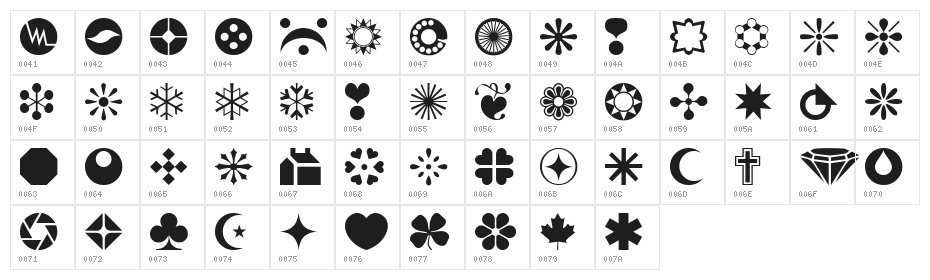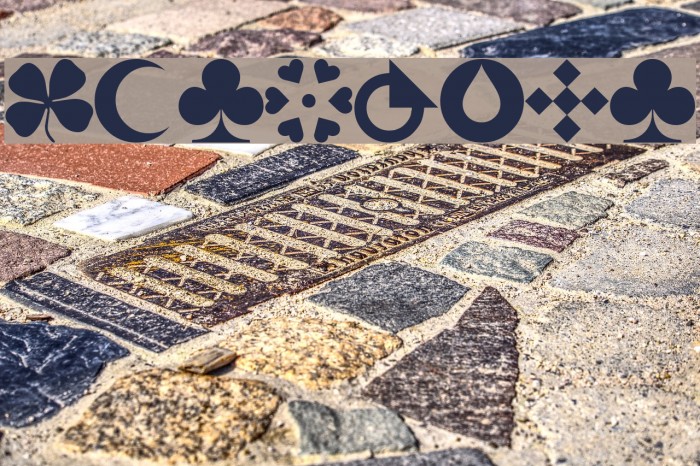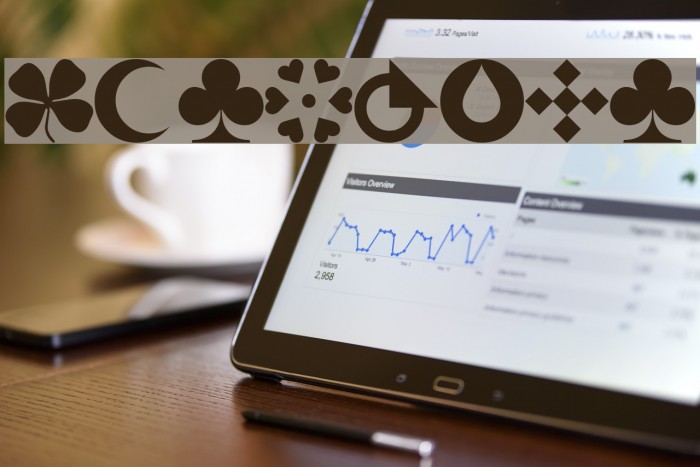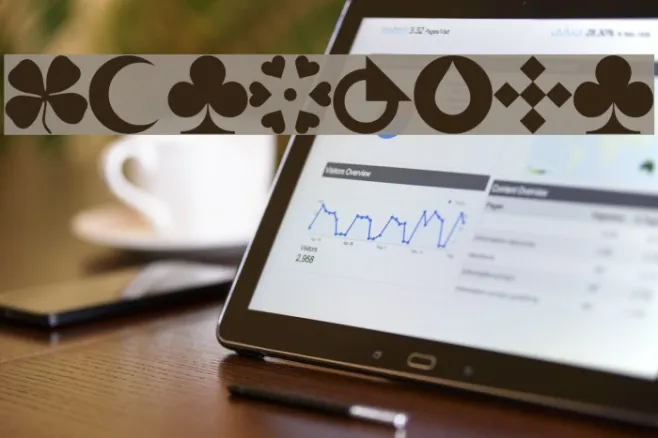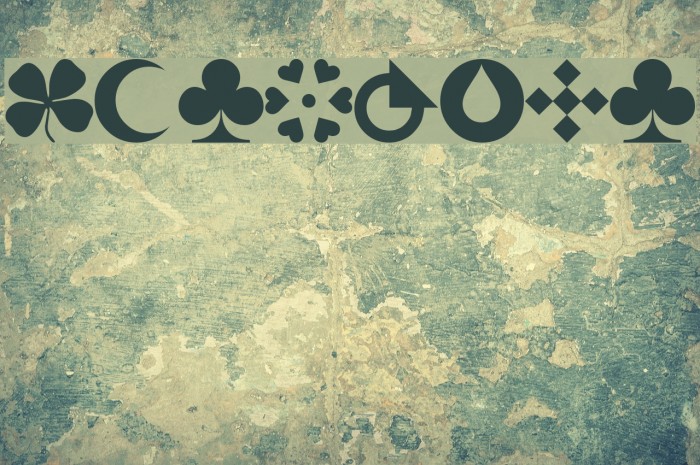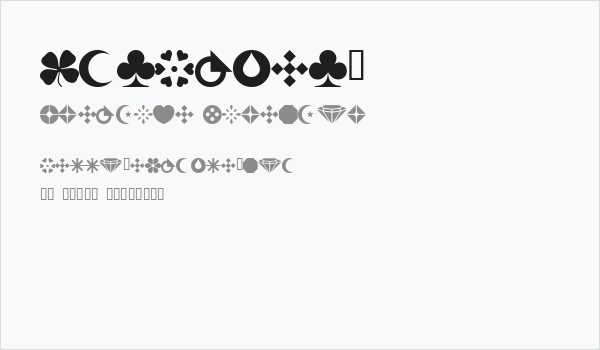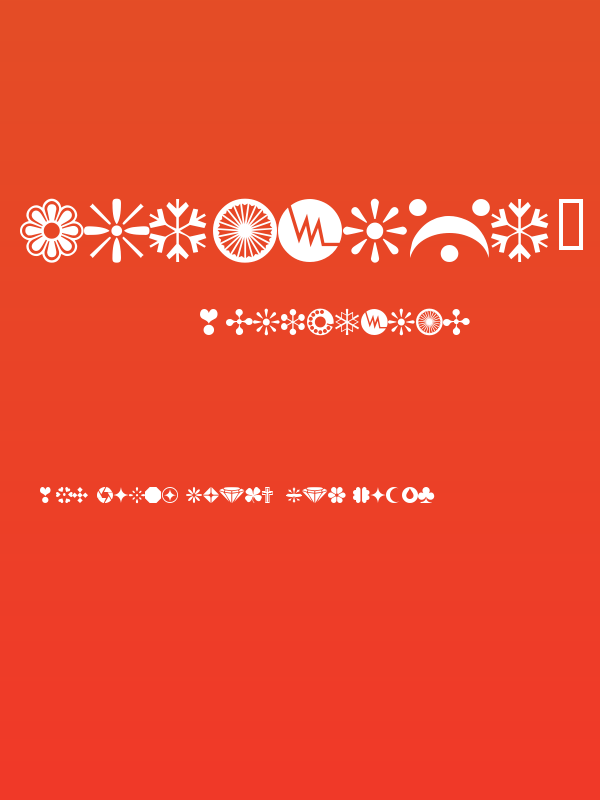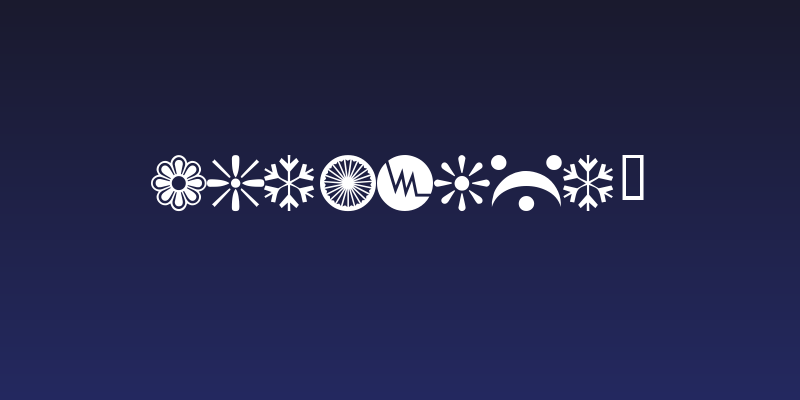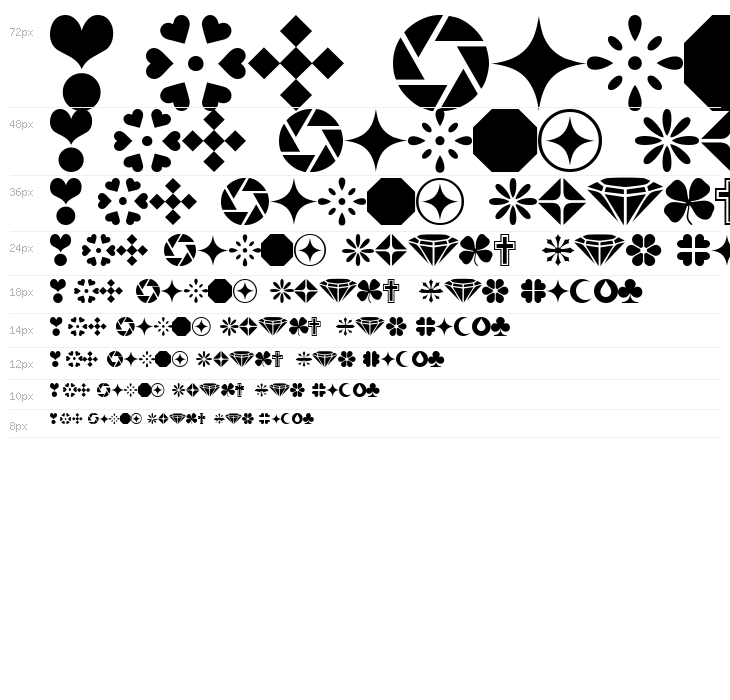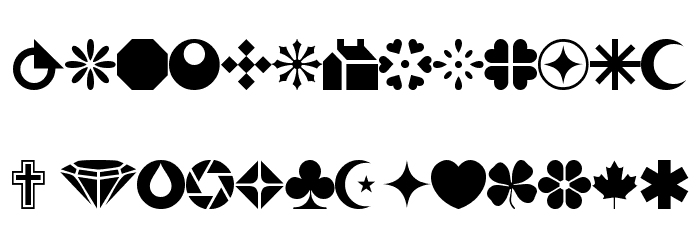
wmshapes1 Font
wmshapes1 Description
A decorative dingbat and symbol font featuring a variety of geometric shapes, icons, and pictograms such as stars, hearts, flowers, diamonds, clubs, crosses, houses, and abstract patterns. The glyphs are bold, solid, and primarily composed of simple black silhouettes with some outlined forms.